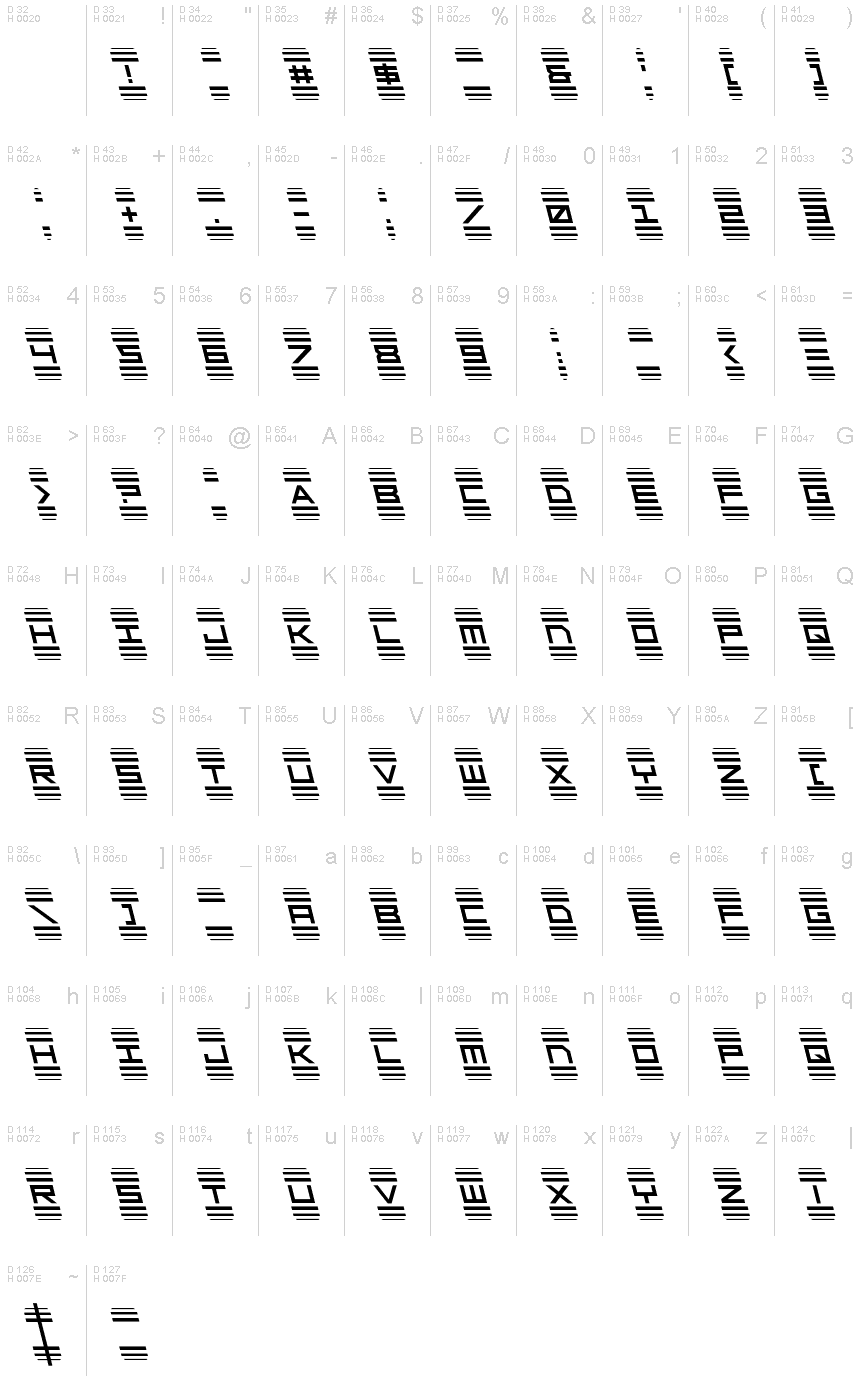
Code Red Leftalic
Code Red Leftalic is a cutting-edge display font from the renowned designer, Iconian Fonts. With its semi-light weight and expanded width, this techno-inspired typeface exudes a modern and futuristic vibe. Its striking italic style adds a touch of dynamism to any design project. Code Red Leftalic is perfect for creating attention-grabbing headlines, posters, and branding materials for technology-based industries such as gaming, software development, and electronics. Stand out from the crowd with this font that will take your projects to the next level of innovation and sophistication.